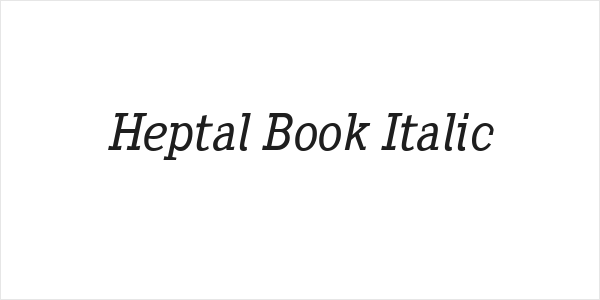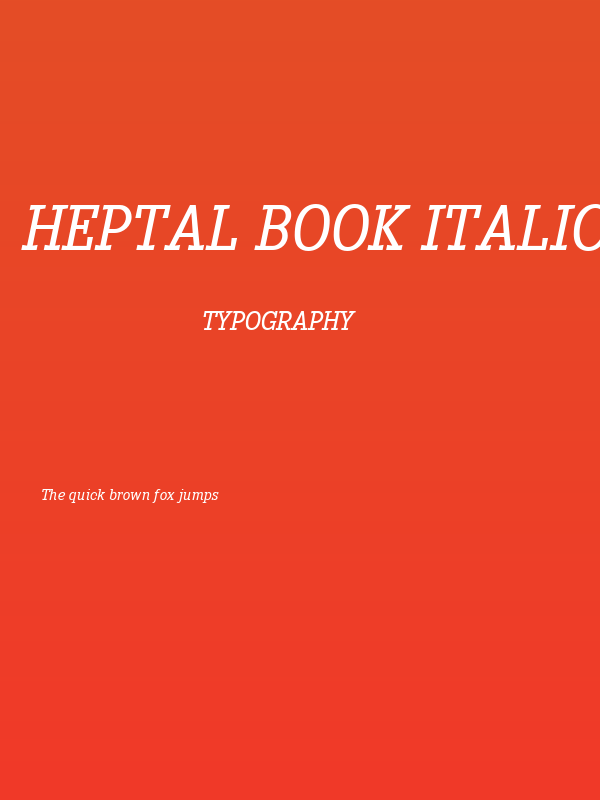
Heptal Book Italic Font
Heptal Book Italic Description
This font features a classic serif style with a distinct italic slant, giving it an elegant and sophisticated appearance. The uppercase letters are bold and prominent, while the lowercase letters maintain a graceful flow. The numerals are clear and balanced, complementing the overall design. Special characters are well-integrated, maintaining the font's cohesive aesthetic. The serifs are pronounced, adding a traditional touch, yet the italic angle introduces a modern twist. This combination makes it versatile for various applications, from formal documents to creative projects.
Overall StyleClassic
Proposed ProjectsIdeal for book covers, formal invitations, branding, and editorial design.